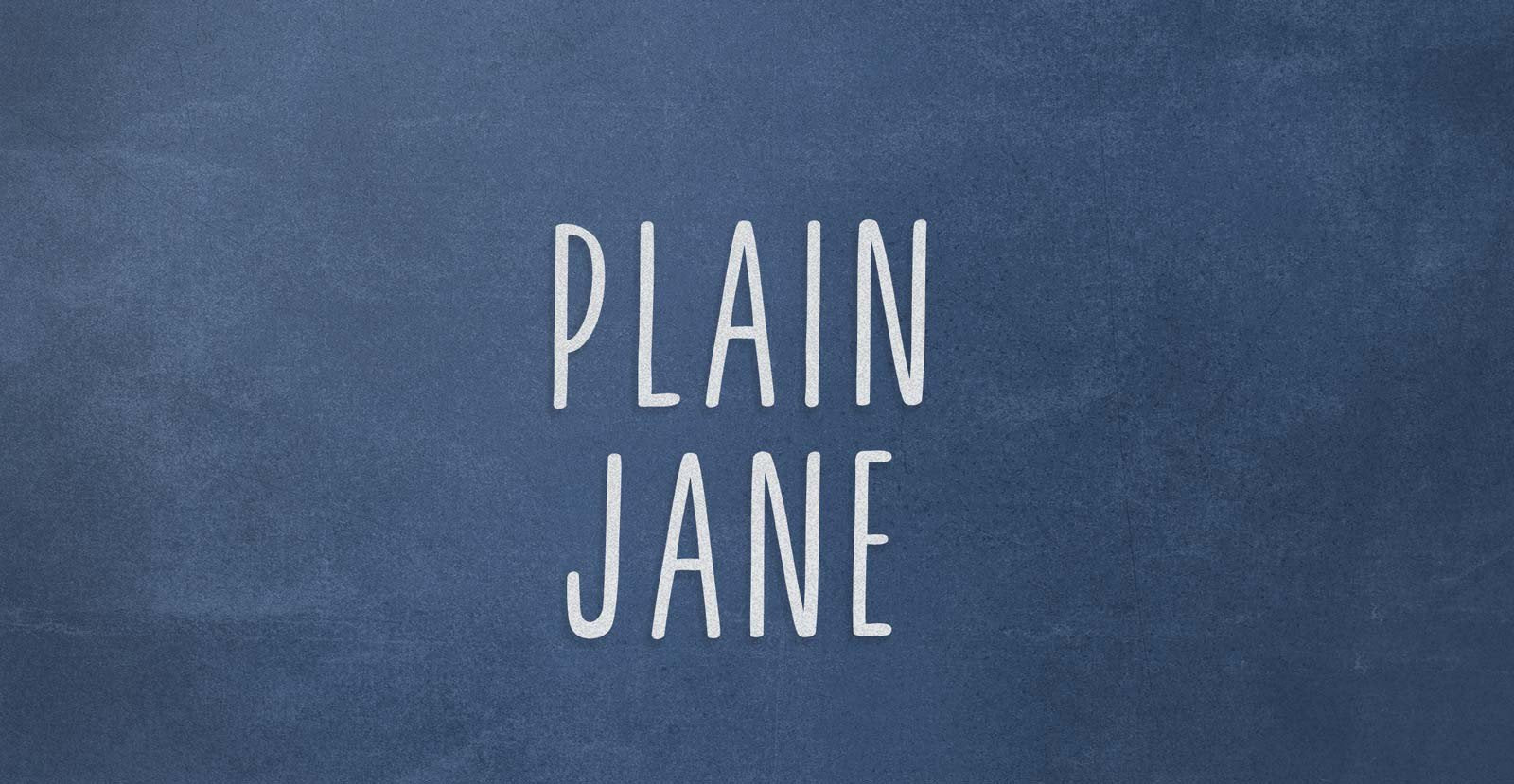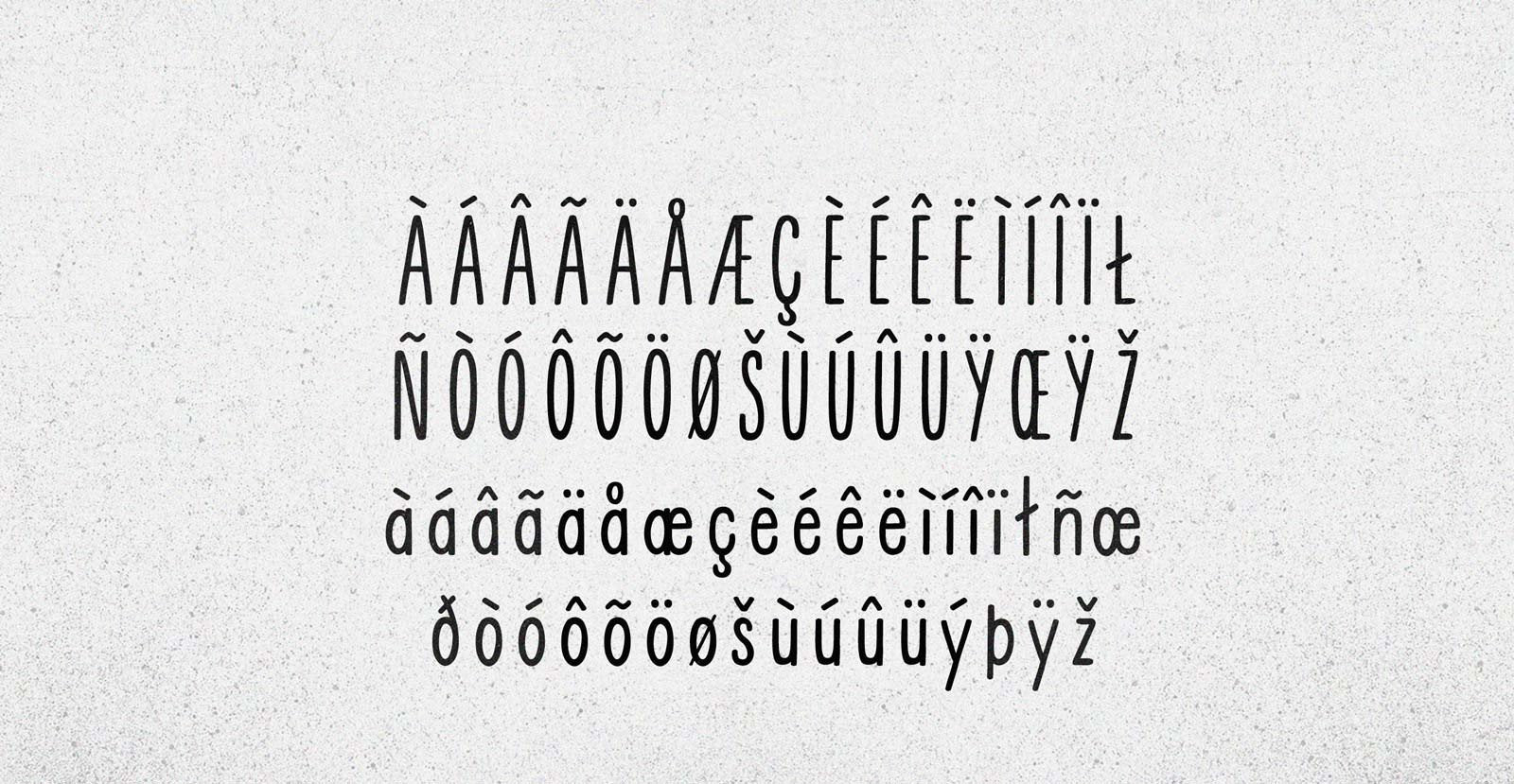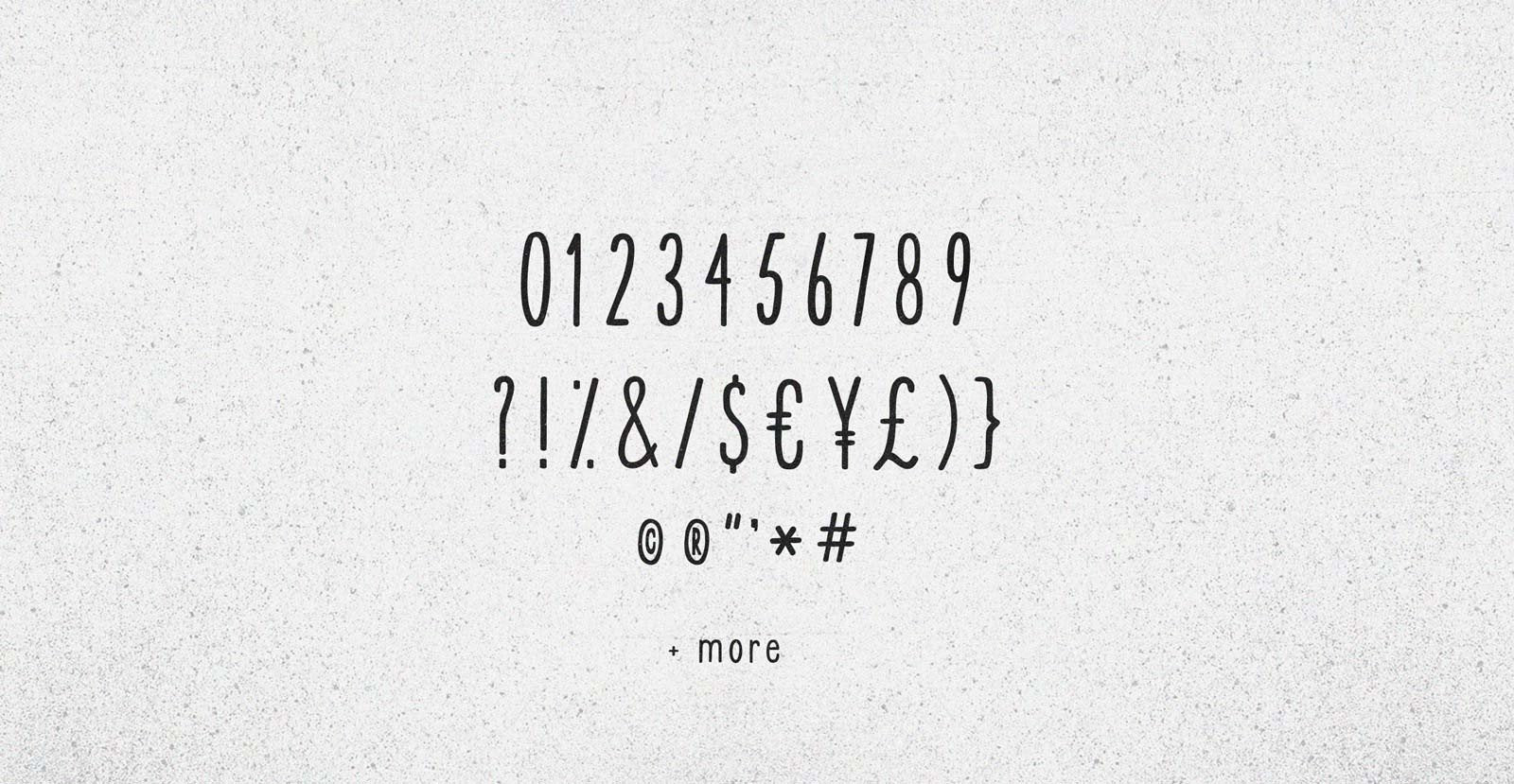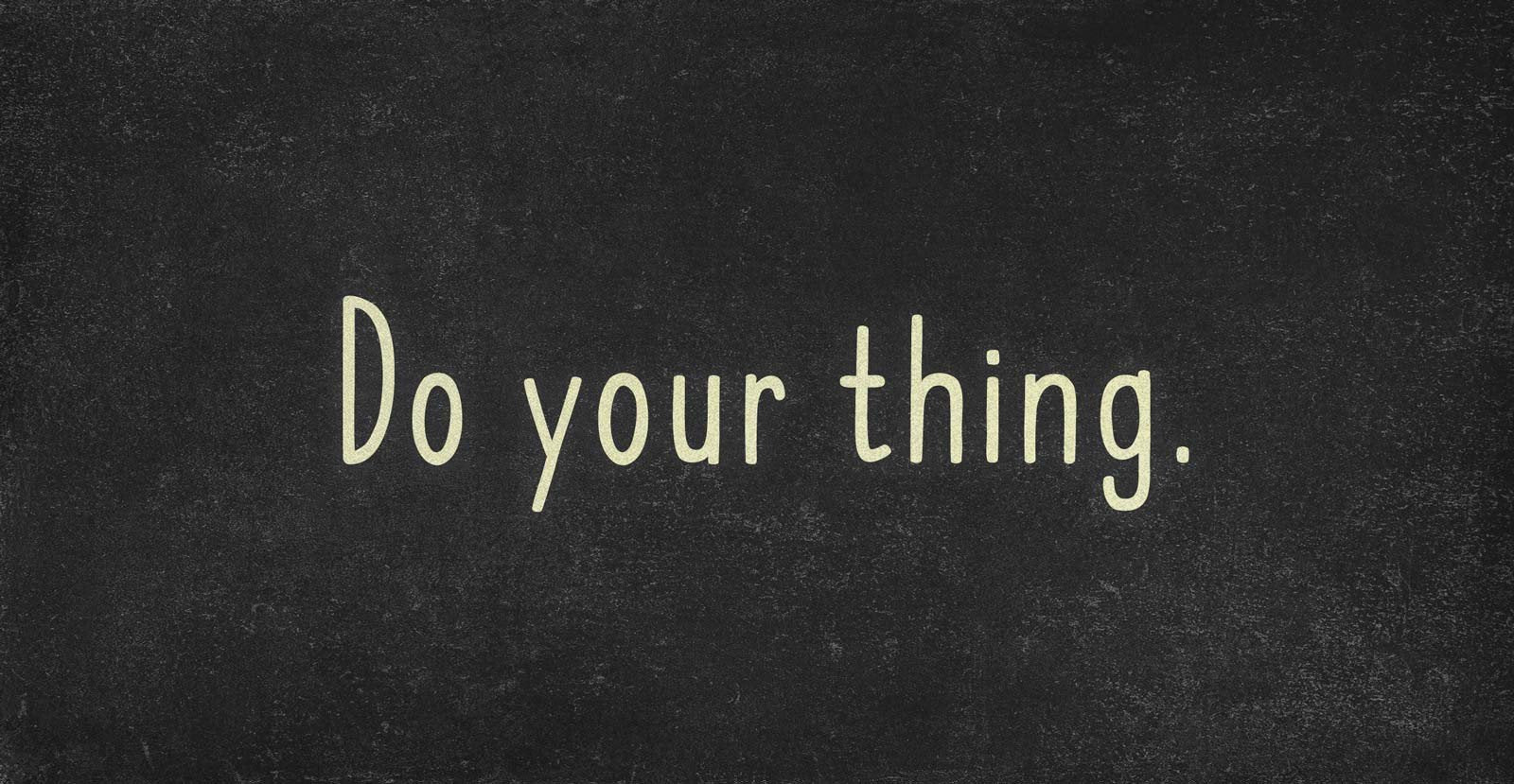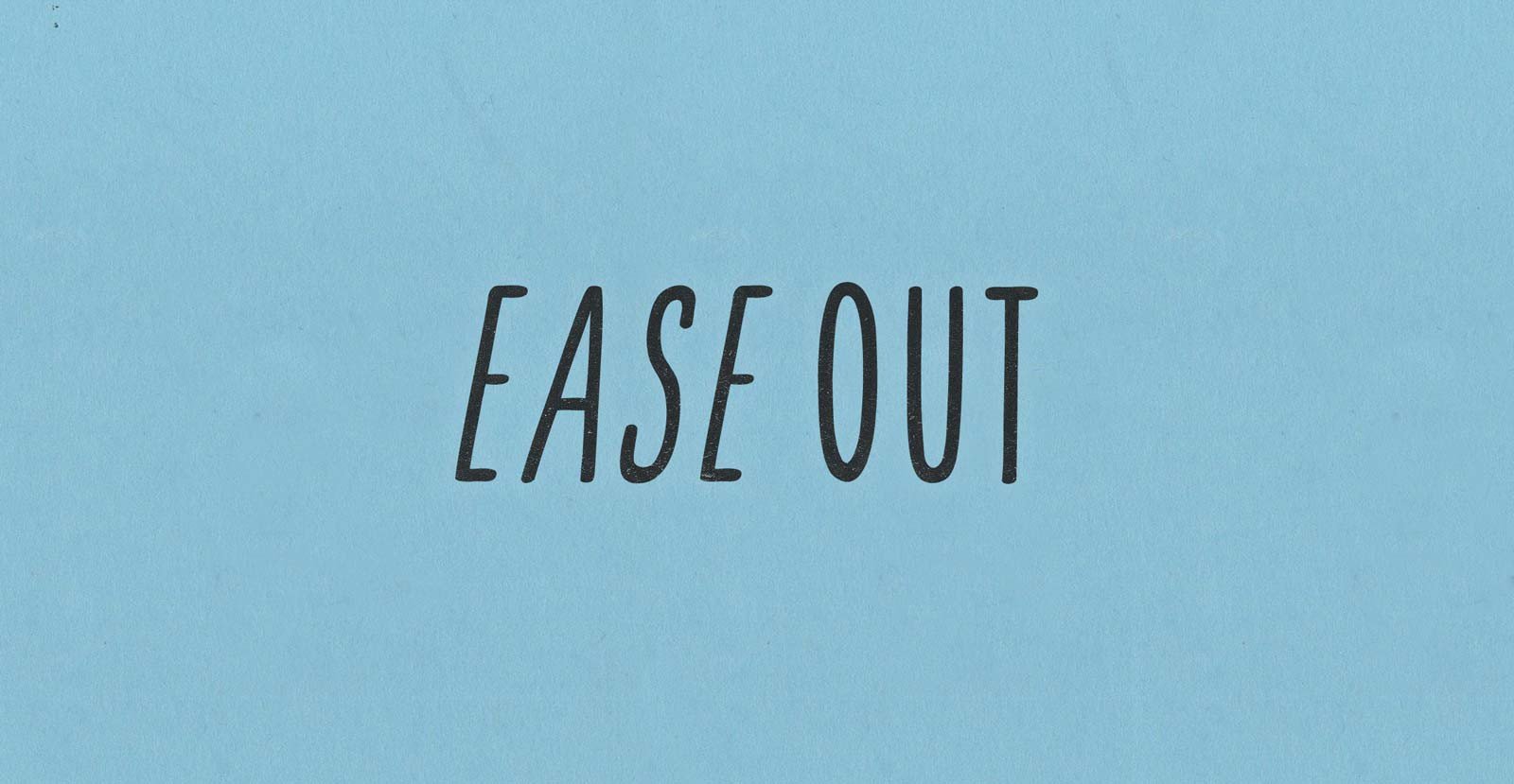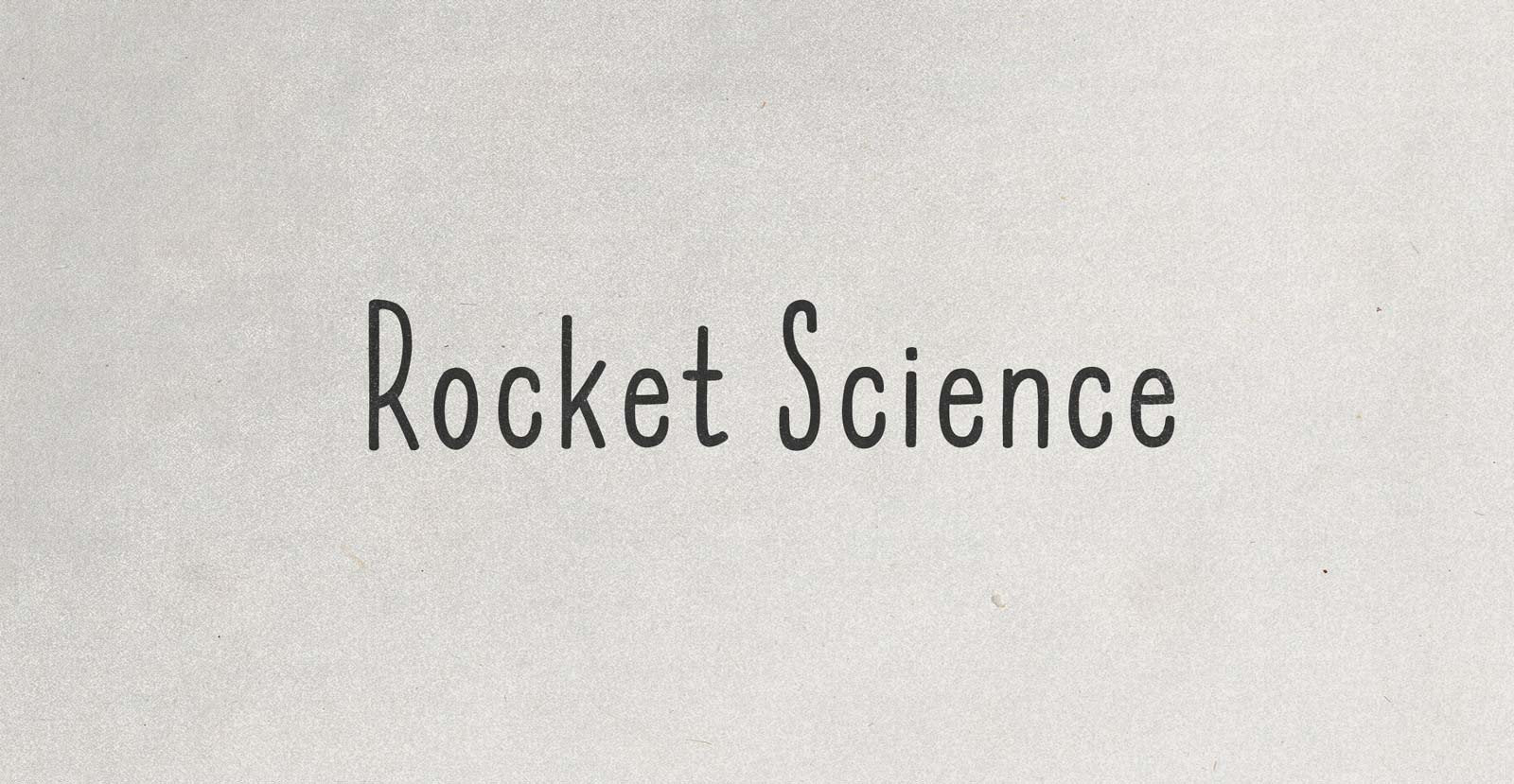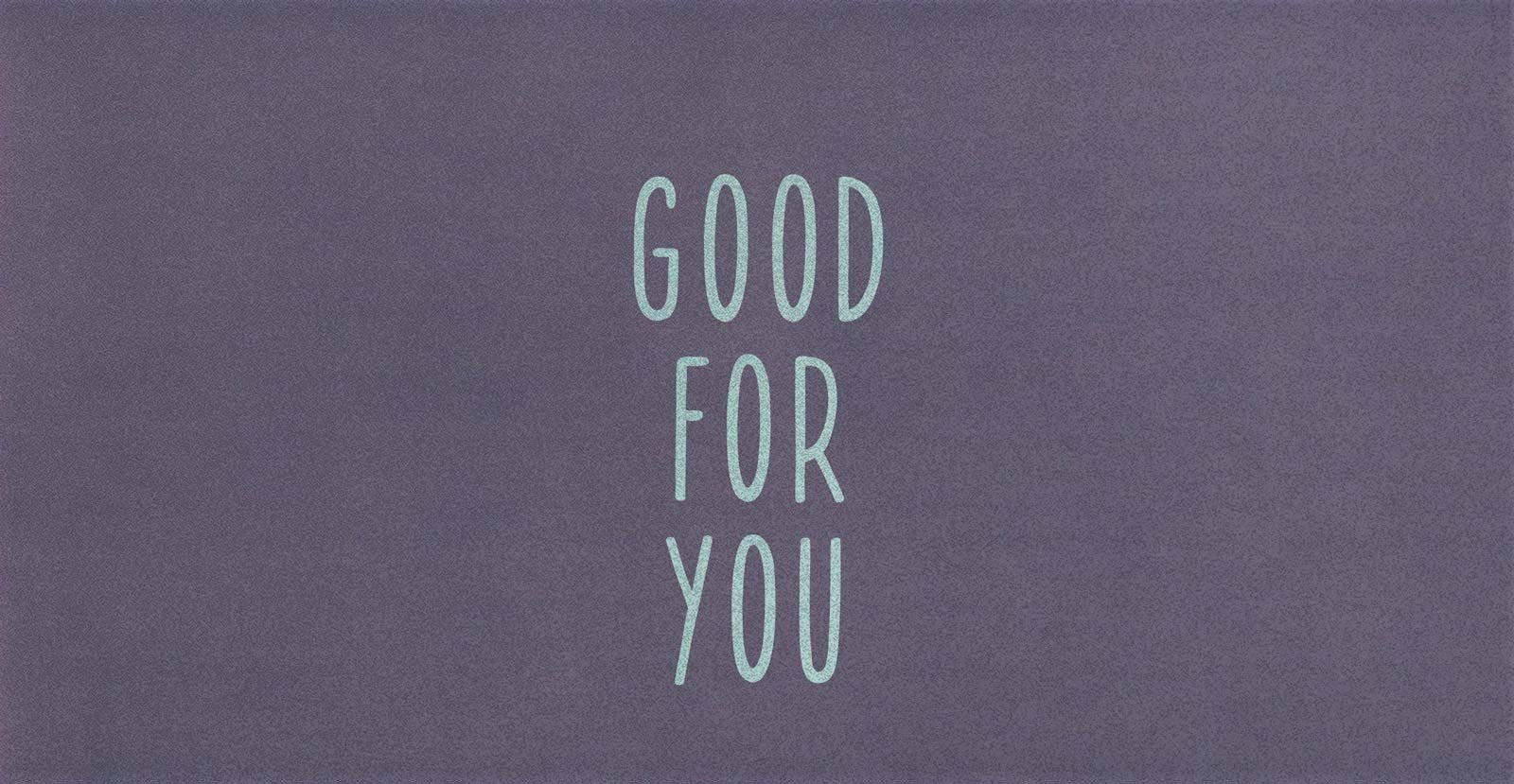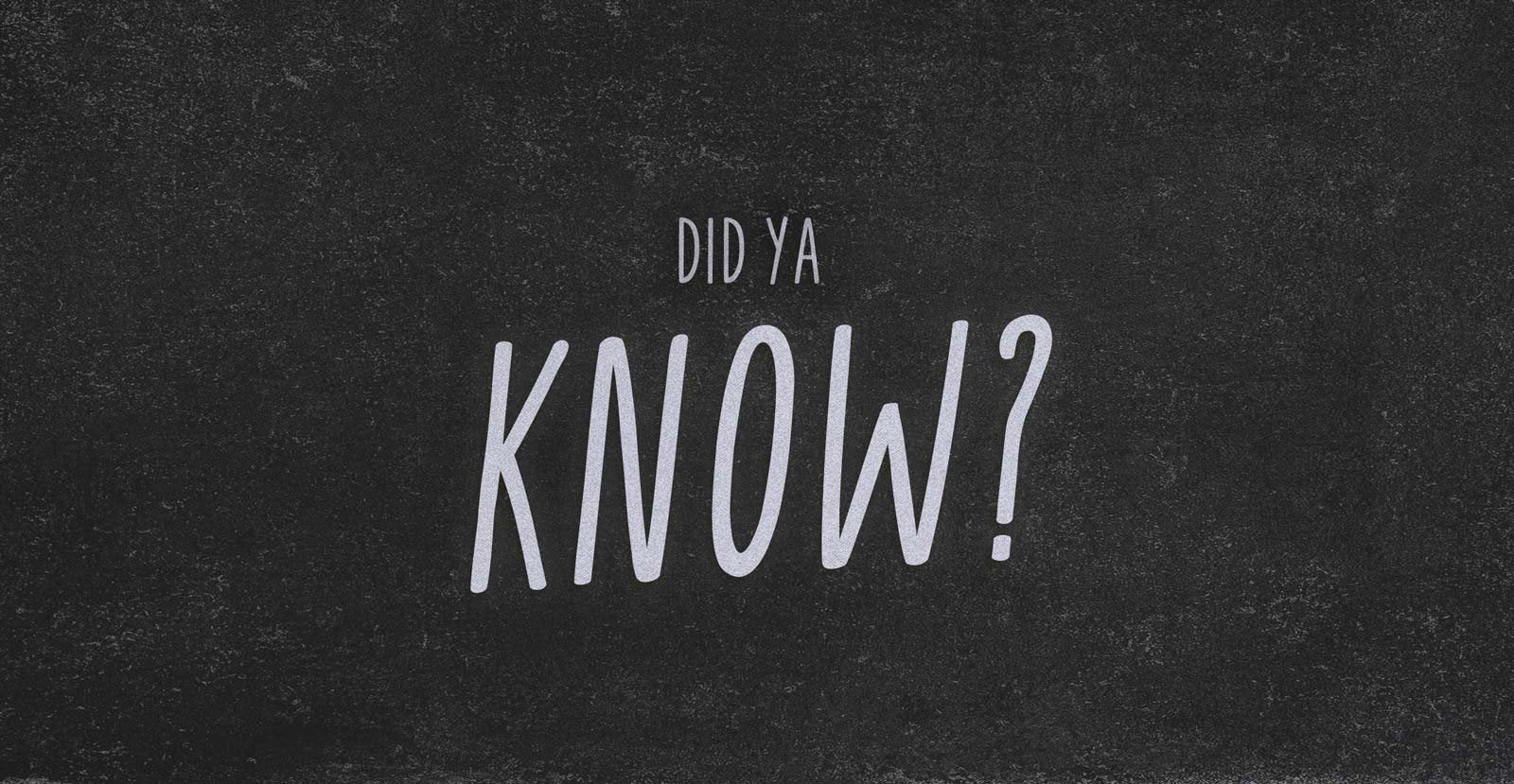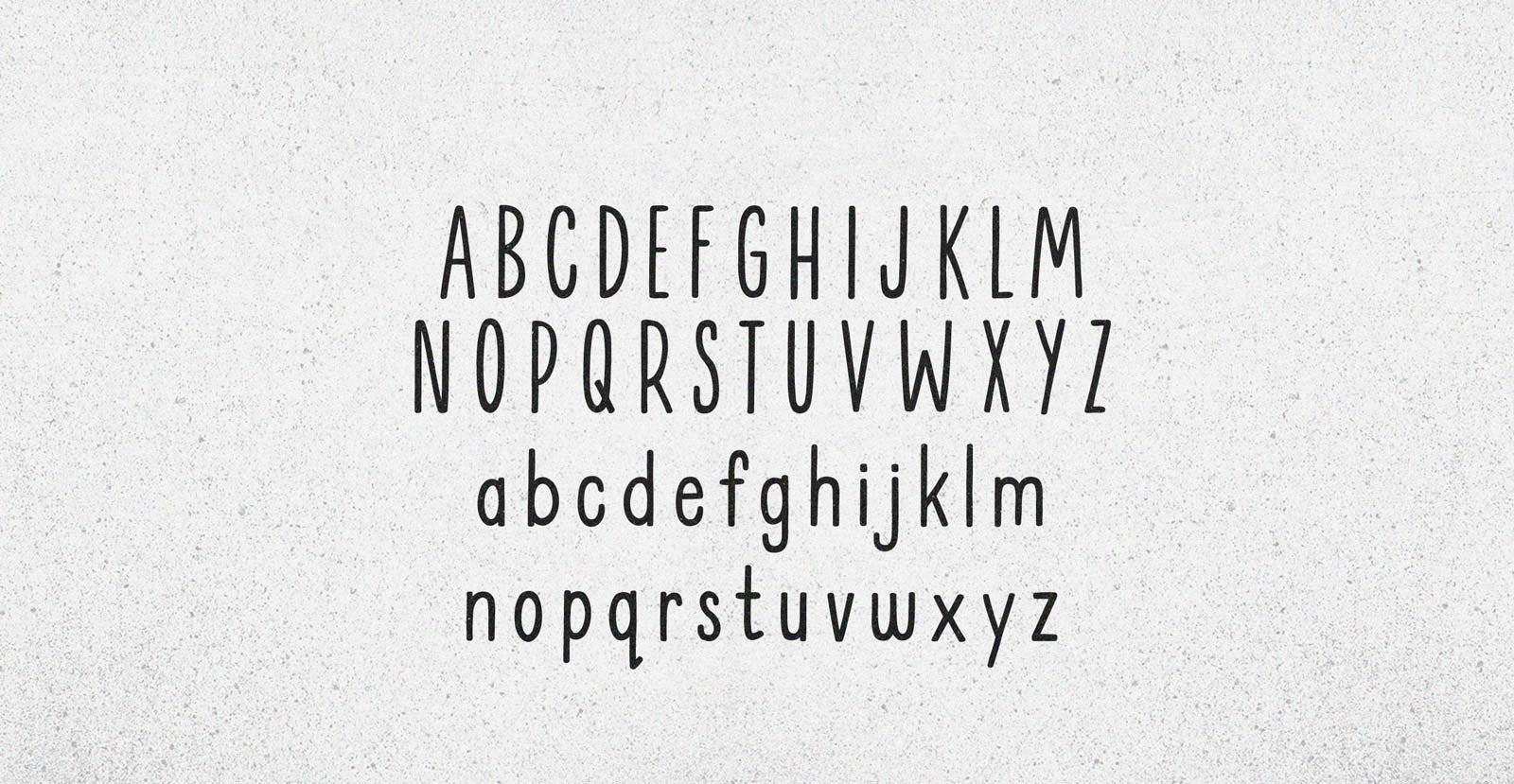
Plain Jane
Handwritten Sans Serif Font
They call her Plain Jane. She's really particular about her soy products and that's all anyone really knows about her. Add whatever flavors you like to that knowledge: chocolate, vanilla, strawberry... banana.